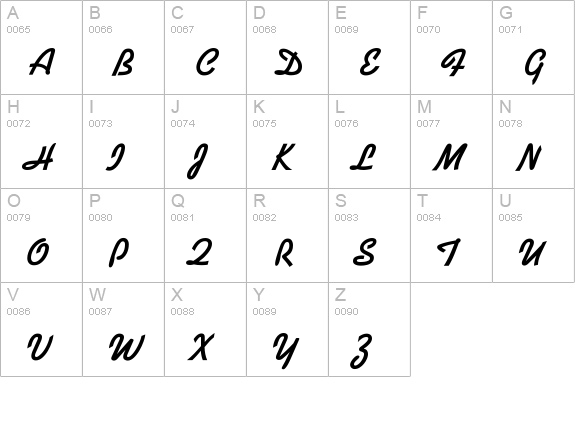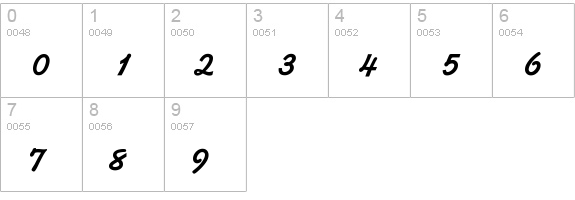
Introducing Kauflinn BOLDITALIC font, the epitome of elegance and sophistication. This stunning font showcases a perfect balance between boldness and italics, creating a captivating visual experience. Designed with meticulous attention to detail, Kauflinn BOLDITALIC font exudes a sense of timeless charm and modern flair. With its sleek and stylish appearance, Kauflinn BOLDITALIC font is perfect for a wide range of design projects. From logo designs to branding materials, from website headers to social media graphics, this font effortlessly adds a touch of class and professionalism to any creative endeavor. But what truly sets Kauflinn BOLDITALIC font apart is its versatility and accessibility. It is the ideal choice for both professional designers and individuals looking to elevate their personal projects. Whether you're working on a corporate presentation or designing a wedding invitation, this font will undoubtedly leave a lasting impression. And the best part? Kauflinn BOLDITALIC font is available for free download at FontsMarket.com. Yes, you read that right! This remarkable font can be yours, without any cost, allowing you to unleash your creativity without limitations. So why wait? Head over to FontsMarket.com and get your hands on the Kauflinn BOLDITALIC font today. Experience the power of this exceptional font and let it elevate your designs to new heights. With Kauflinn BOLDITALIC font, the possibilities are endless, and the results are nothing short of extraordinary.